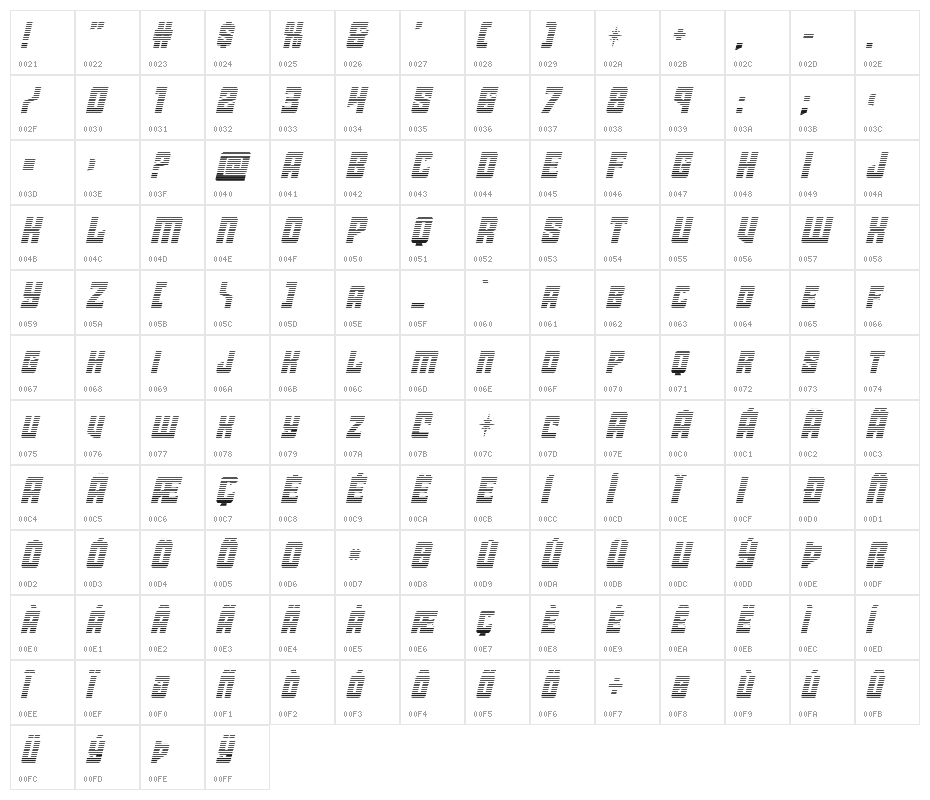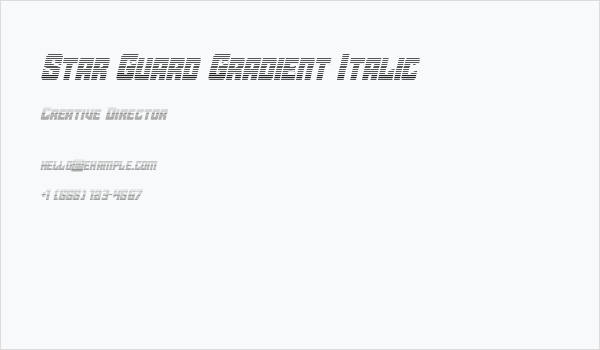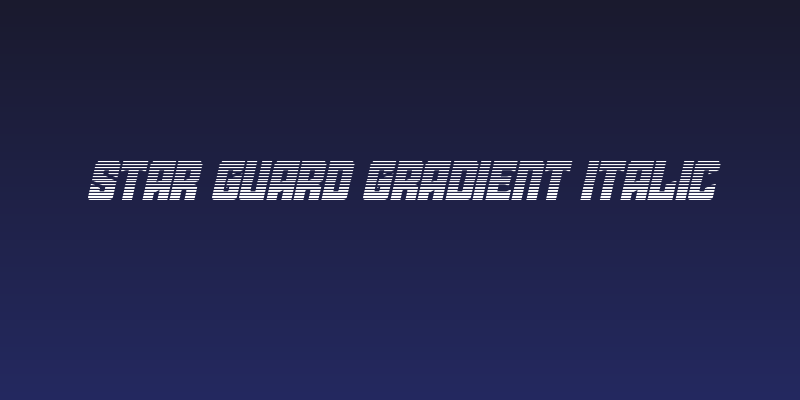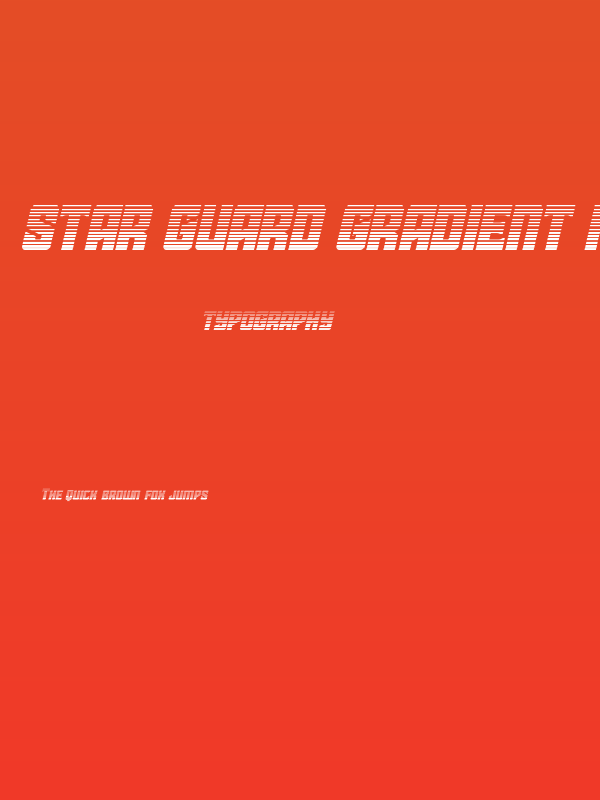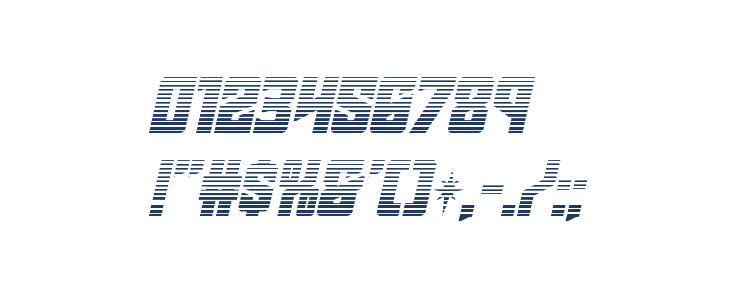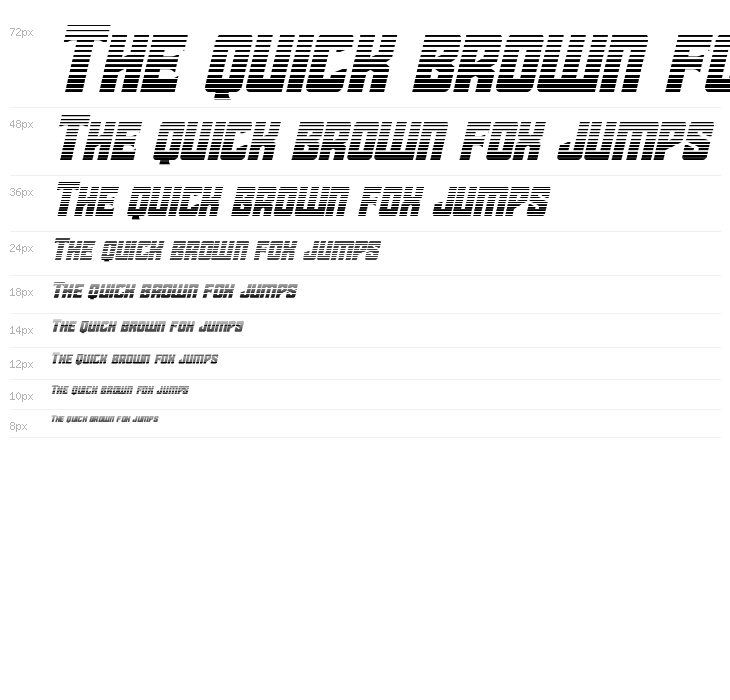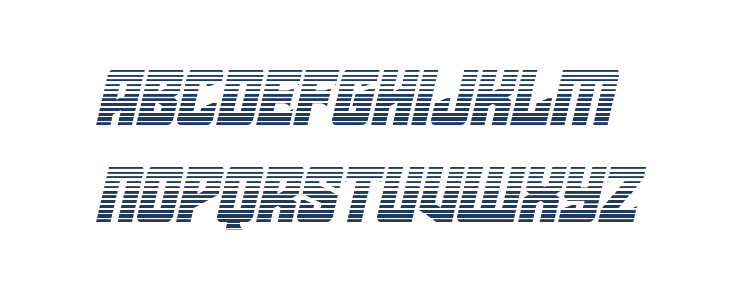
Star Guard Gradient Italic Font
Star Guard Gradient Italic Description
This font features a bold, futuristic design with a gradient effect that gives it a dynamic, high-tech appearance. The italicized style adds a sense of motion and speed, making it ideal for projects that require a modern and energetic look. The characters are constructed with horizontal lines that create a striped pattern, enhancing the overall visual impact. This design is particularly suitable for digital and sci-fi themed projects, where a strong, distinctive typeface is needed to capture attention.